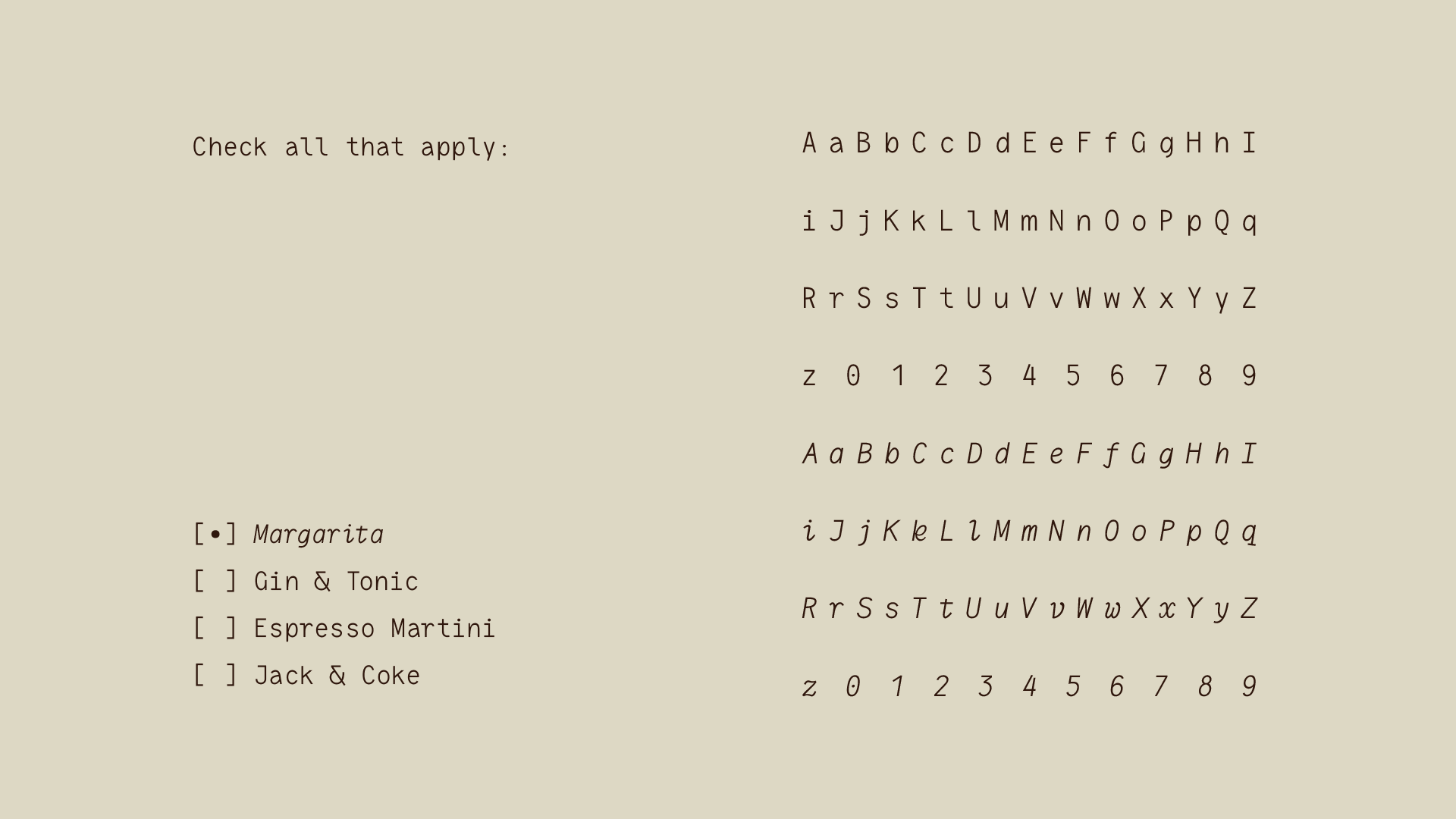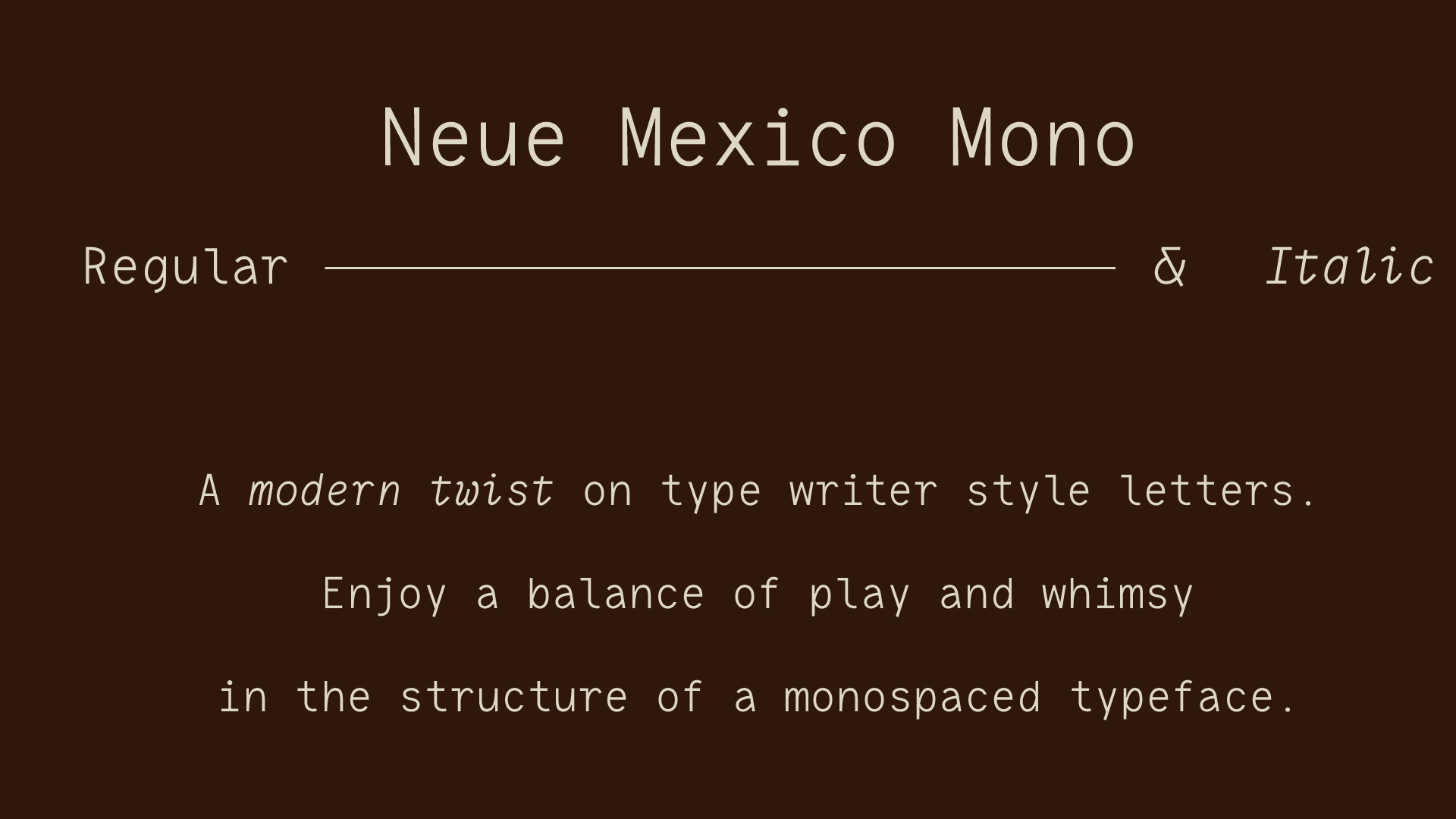
This monospace typeface was born from the need of a structured typeface that wasn’t too rigid. It needed a balance of whimsy and play to bring life to this new take on a mono font.